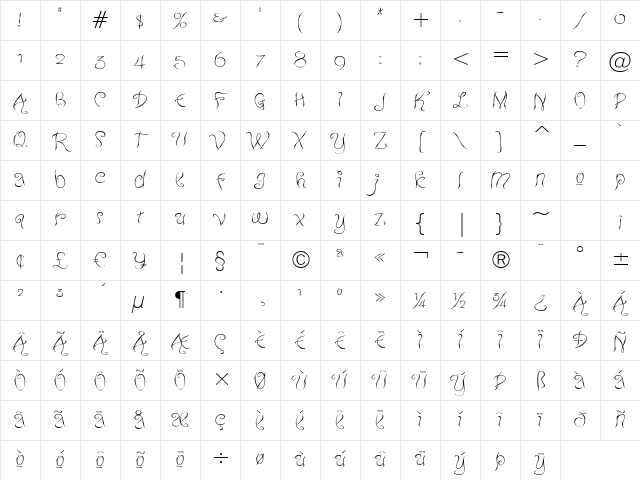
Neurotic Minds BTN Regular Free Font
Neurotic Minds BTN Regular
Design Context for Neurotic Minds BTN
Neurotic Minds BTN is a composed and adaptable typeface that performs quietly and consistently across a wide range of design contexts.